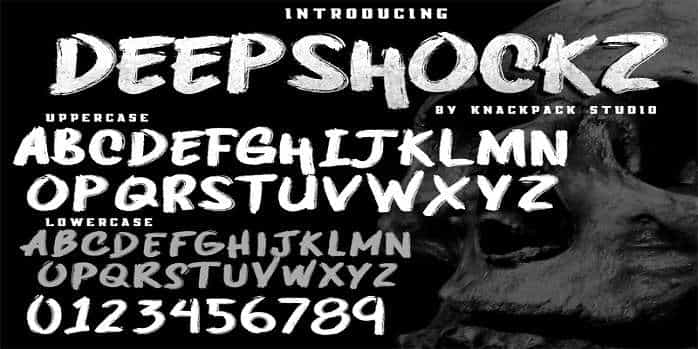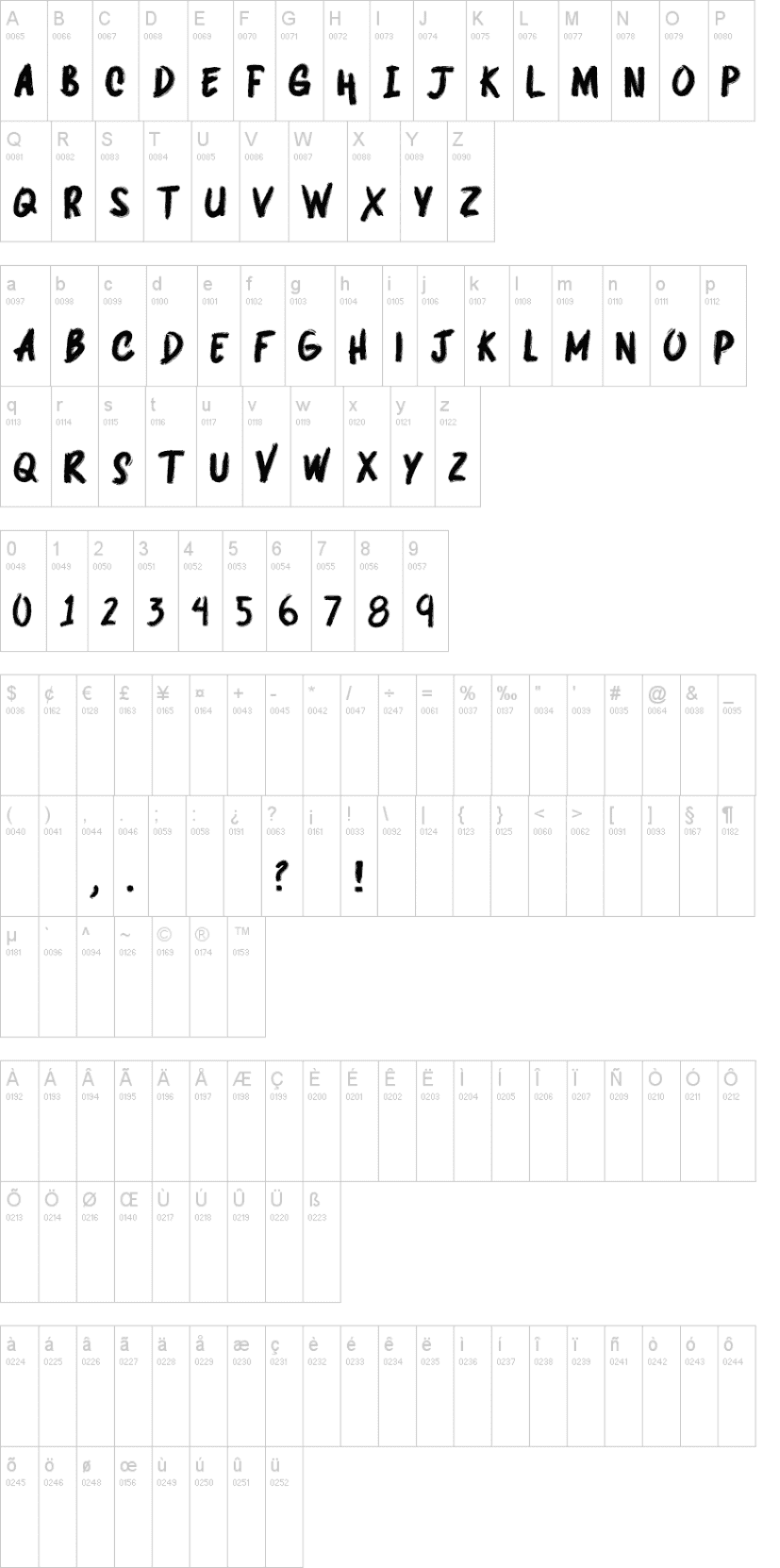
Discover Deepshockz Font, part of the Brush collection—a versatile and unique font perfect for adding a personal touch to your projects. Download it for free and enjoy crafting designs with style, from invitations to social media posts. This font is available exclusively for personal use, giving you the freedom to create without limits. Unlock your creativity with Deepshockz Font today!
Deepshockz belongs to Brush font family and was created by Knackpack Studio. This font is free for download and personal usage. In the free version, all the alphabet letters in both capital and small case as well as a couple of special characters are available.